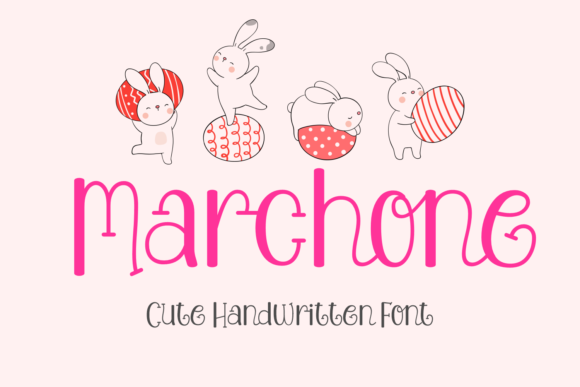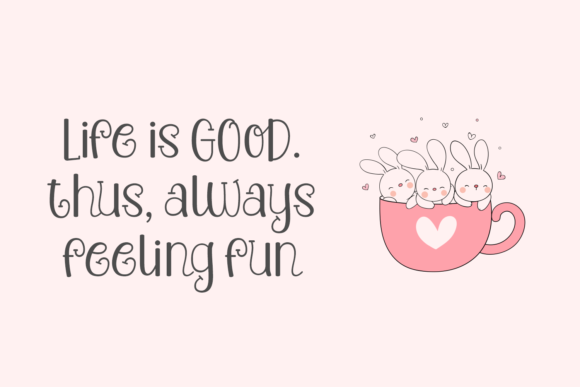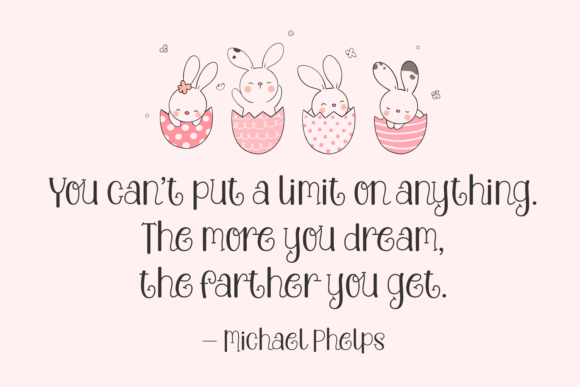
Marchone Font
About Marchone Font
Marchone is playful and whimsical, but also elegant. This versatile script font has a wide range of applications ranging from headlines to DIY projects and is guaranteed to add a quirky touch to your next design.
This font is PUA encoded which means you can access all of the magical glyphs and swashes with ease! It also features a wealth of special features including alternate glyphs and ligatures.